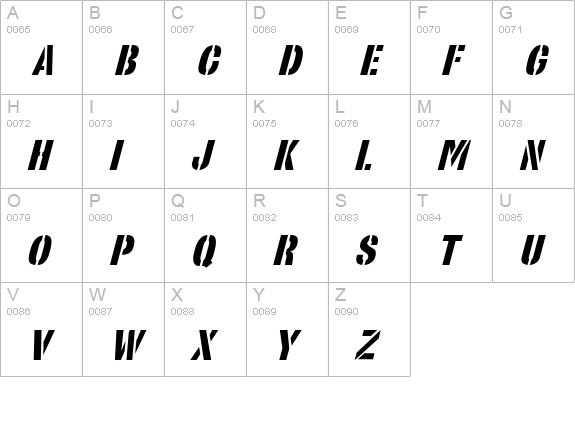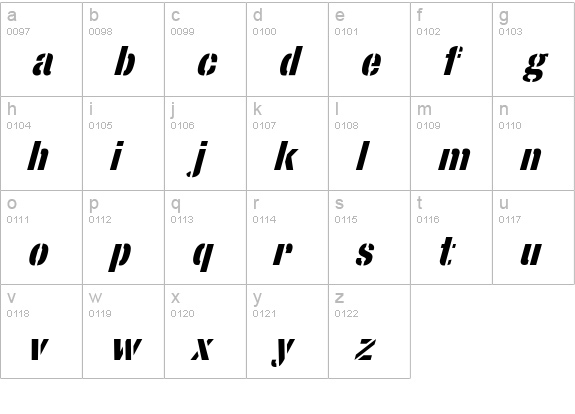
StencilSans Bold Italic is a strong, high-contrast, italic variant in the StencilSans typeface family \xE2\x80\x94 well suited to headlines, attention-grabbing titles, and strong calls-to-action.
Introducing StencilSans Bold Italic font - a dynamic and eye-catching typeface that exudes a sense of modernity and sophistication. With its bold and slanted design, this font is perfect for making a statement in various design projects, from posters to branding materials. The StencilSans Bold Italic font strikes the perfect balance between elegance and impact, making it a versatile choice for both print and digital applications. Its distinctive stencil-style letterforms add a touch of uniqueness to any design, while the bold weight commands attention and ensures readability in any size. Best of all, StencilSans Bold Italic font is completely free to download at FontsMarket.com, making it accessible to designers and creatives looking to add a bold and contemporary touch to their work. Don't miss out on this opportunity to elevate your designs with the striking StencilSans Bold Italic font today!